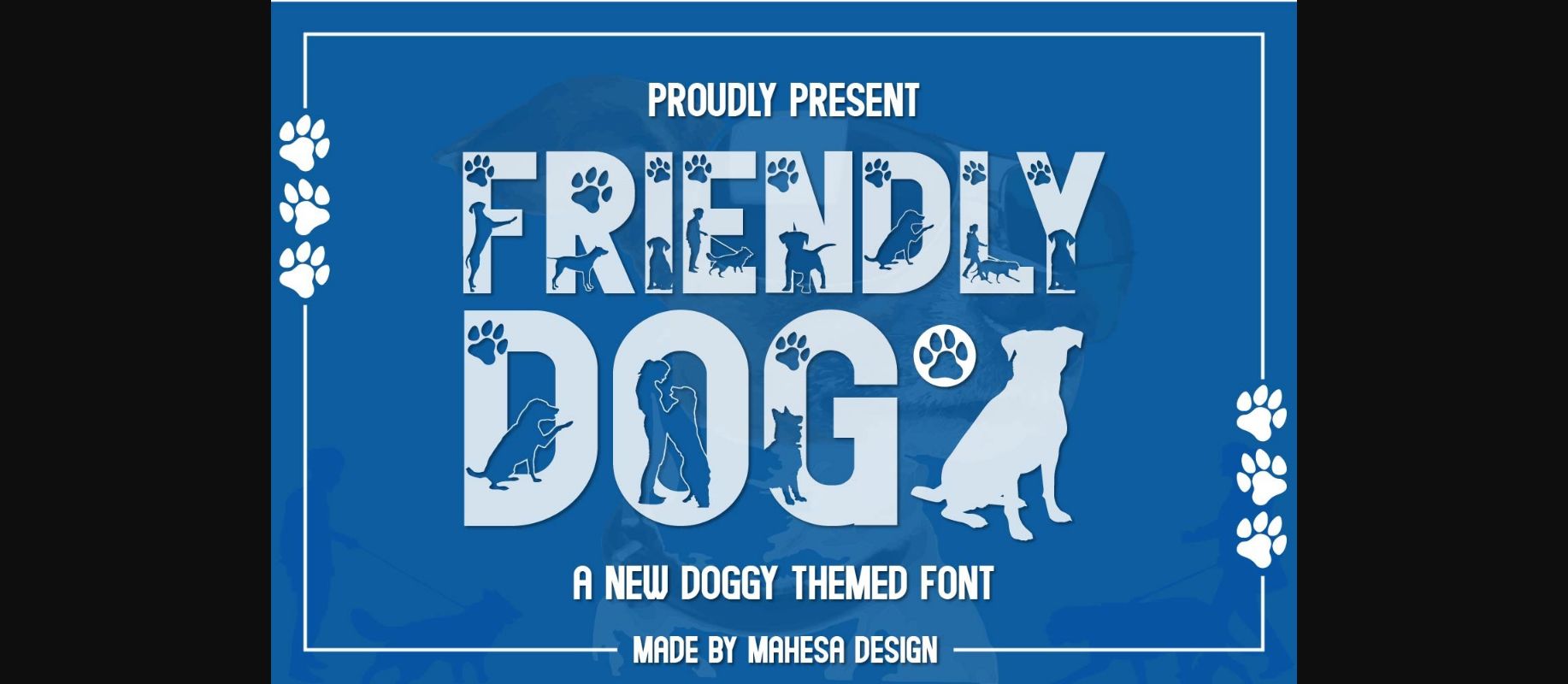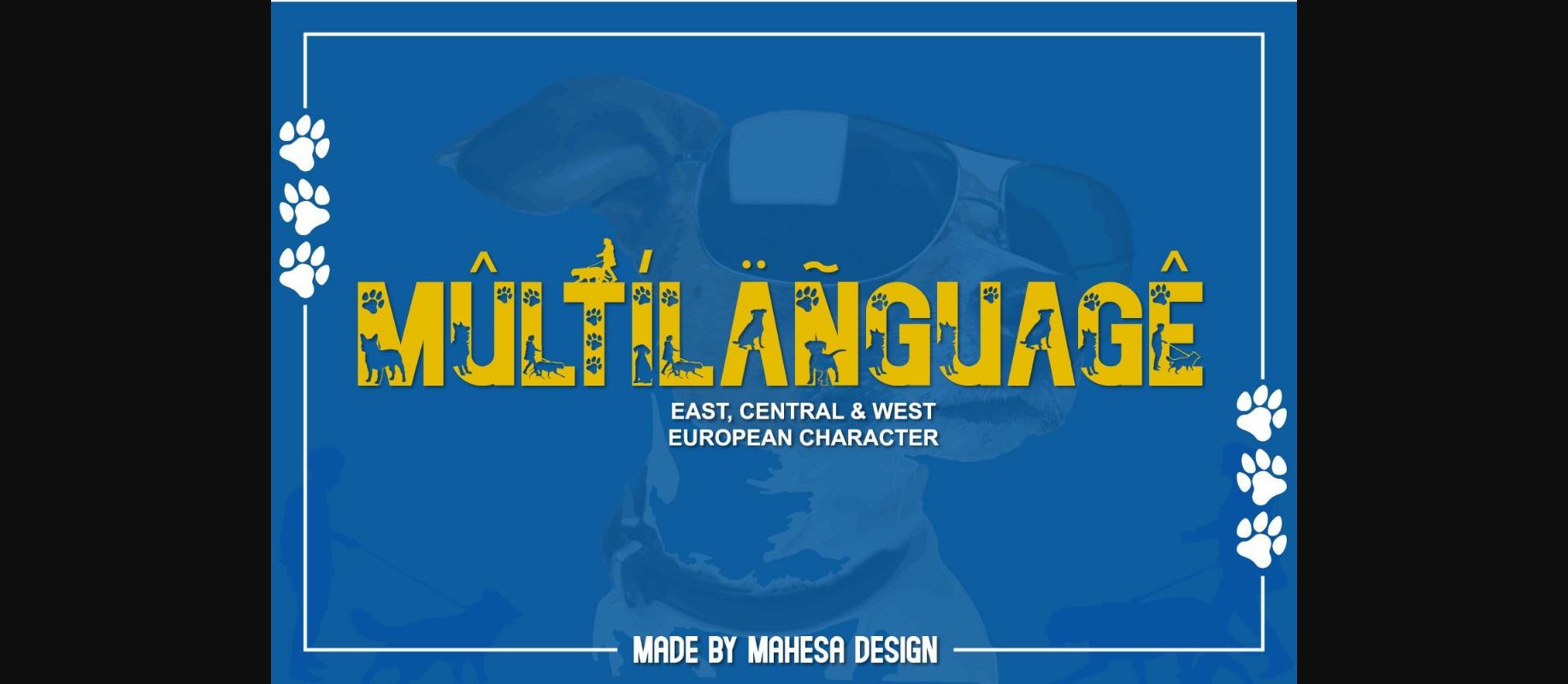
About Friendly Dog Font
Friendly Dog is a cute and adorable decorative font perfect for all dog lovers. No matter the topic, this font will be an incredible asset to your fonts’ library, as it has the potential to elevate any creation.